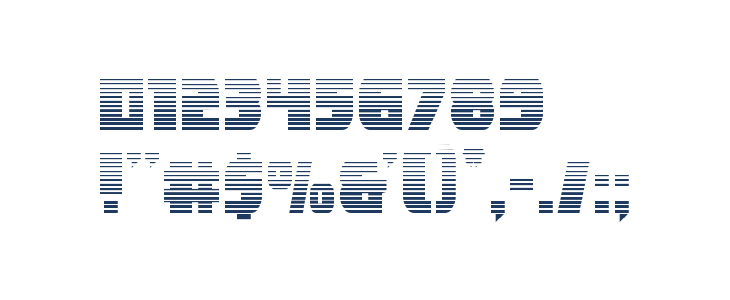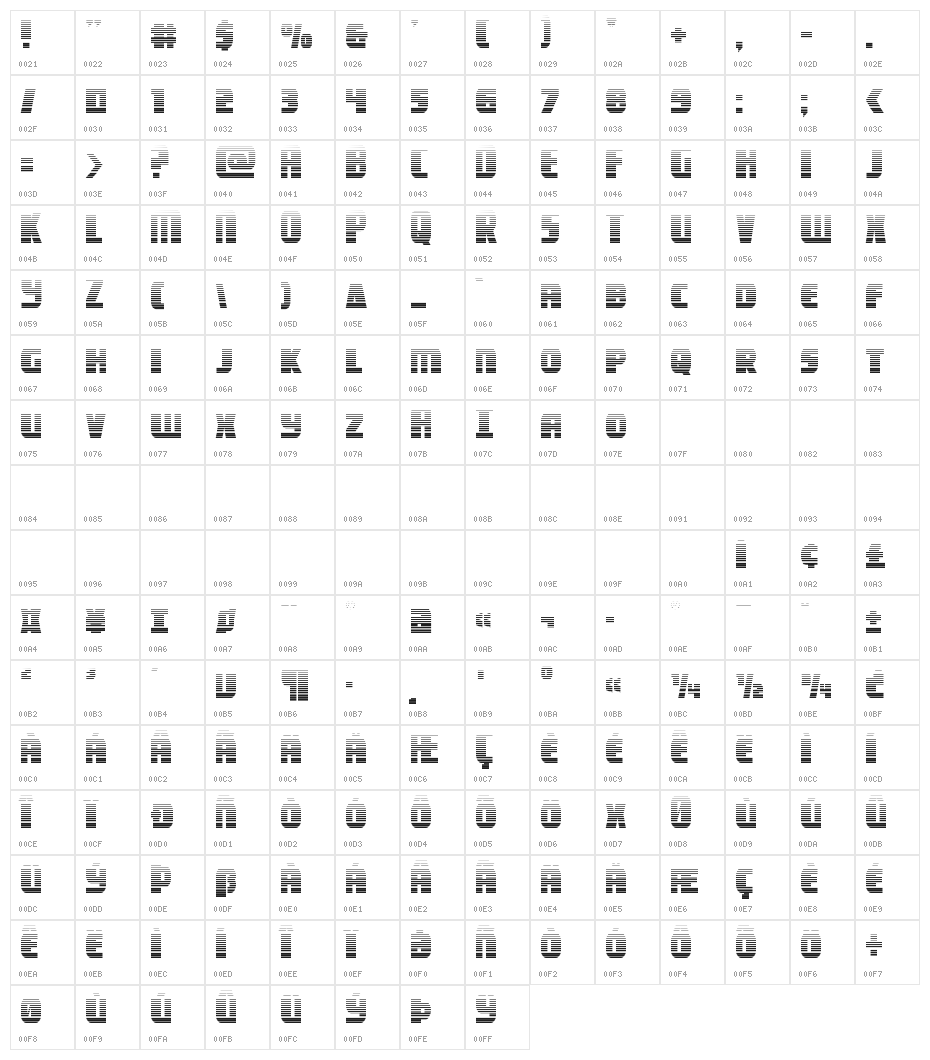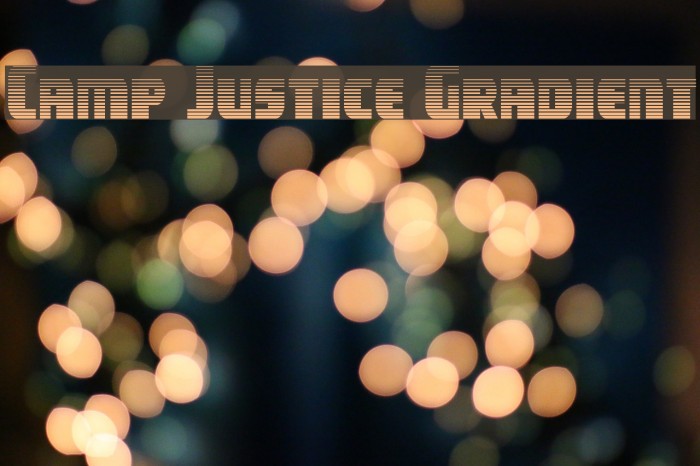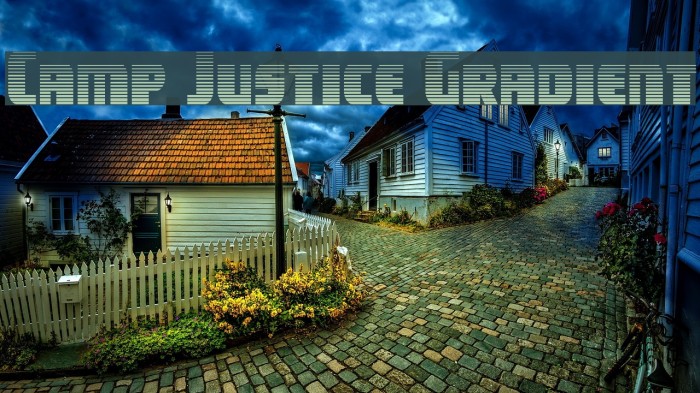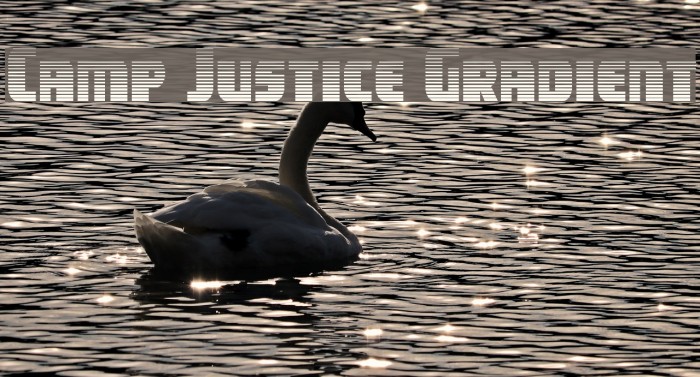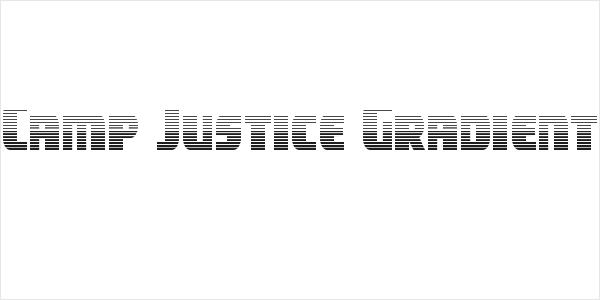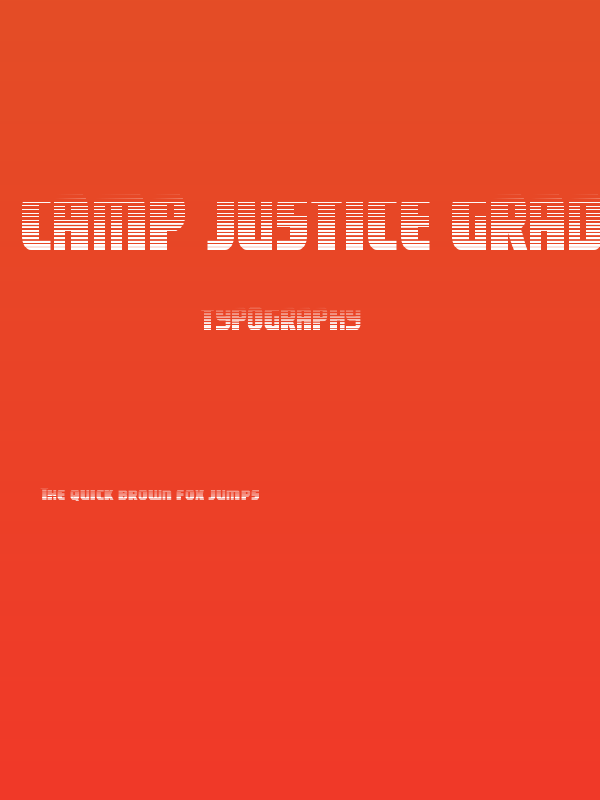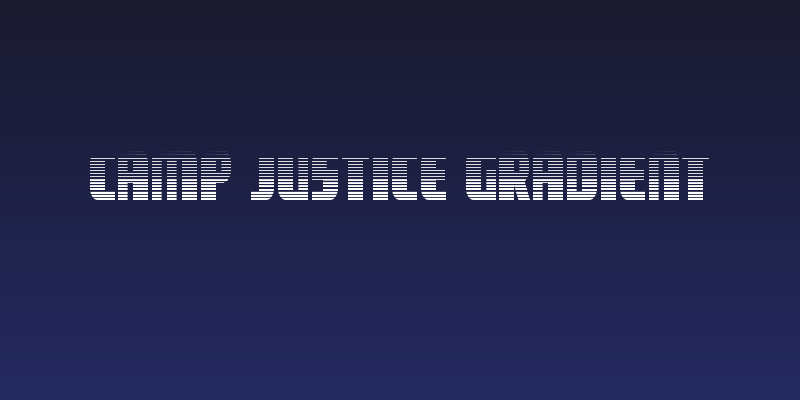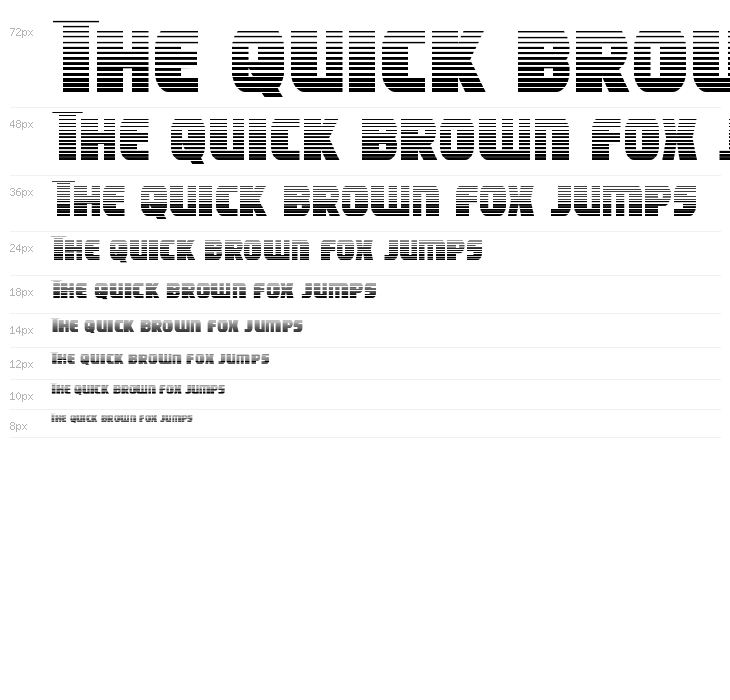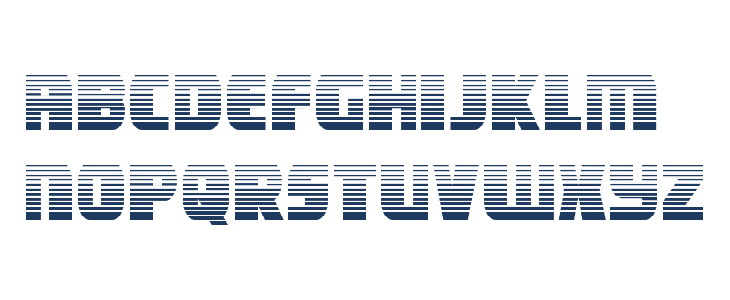
Camp Justice Gradient Font
Camp Justice Gradient Description
This font features a bold, geometric design with a distinctive striped pattern running horizontally across each character. The uppercase letters are blocky and robust, giving a sense of strength and stability. The lowercase letters maintain the same structural integrity, ensuring consistency throughout the typeface. The numerals are equally bold, matching the style of the alphabetic characters. Special characters are included, each designed with the same striped motif, adding a unique flair to the overall appearance. The font's design is eye-catching and modern, making it suitable for projects that require a strong visual impact.
| Proposed Projects | Ideal for branding, posters, headlines, and any design needing a strong visual impact. |